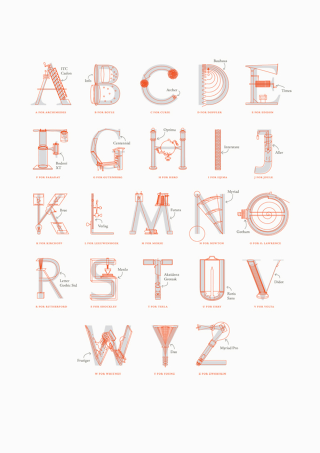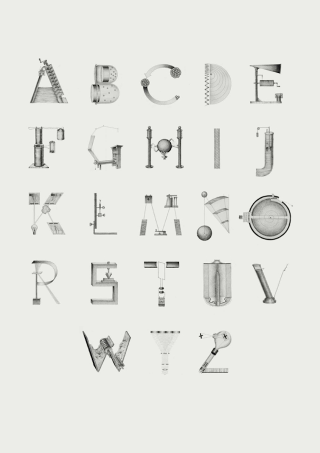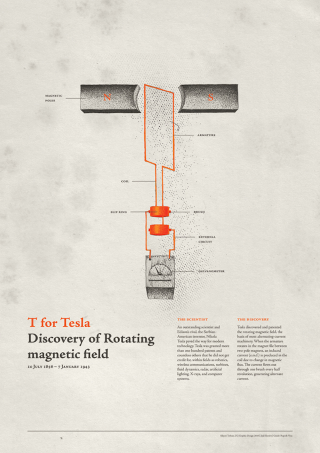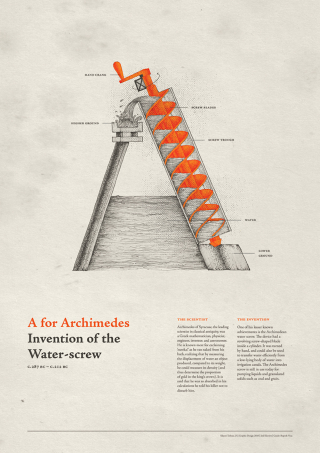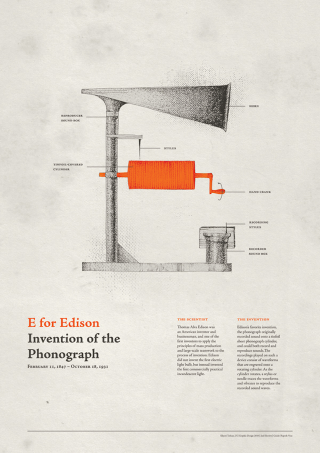
An Intricate Typeface Made Out of History’s Greatest Inventions
When she was a design student, Khyati Trehan embarked on an ambitious project to highlight history’s 26 most influential inventors with a unique alphabet. Remarkably, each letter of the special typeface is drawn with a world-changing invention while also name-checking the inventor. The letter “E,” for instance, is represented by the phonograph invented by Edison.
The project, “The Beauty of Scientific Diagrams,” should appeal to bibliophiles and science nerds alike. Trehan’s project includes not only the finished alphabet but also individual diagrams with labels for everyone from Archimedes (the letter “A”) to Zworykin (the letter “Z”), including a cameo by Tesla (the letter “T”). She also posted a book length description of the project and the process behind it online for all to enjoy.